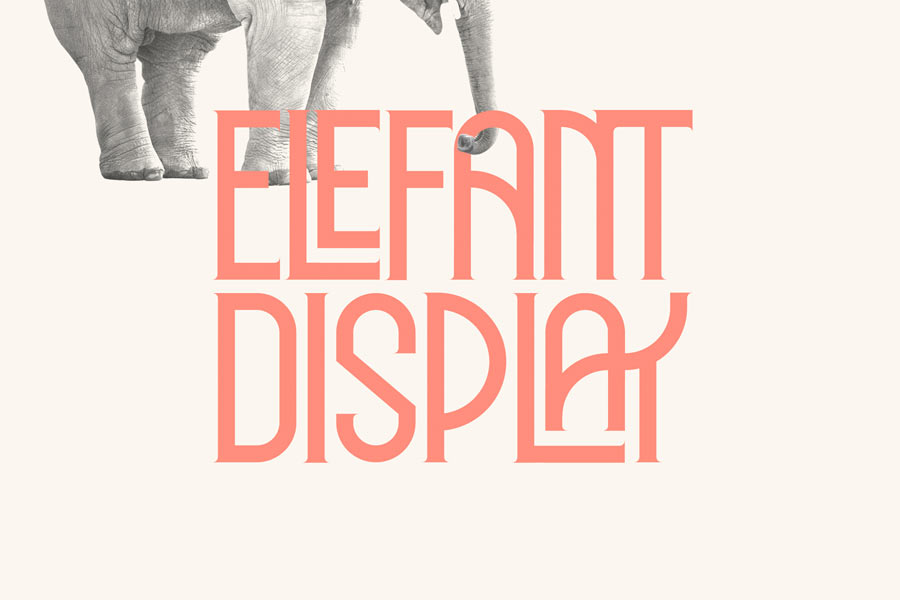
Elephant Display Font
Elephant Font – is when you have better weaponry than any other designer as you have this font in your hands. This is for believers in themselves designers with skills as professional and with all required hands on tools available. Elephant Display Font is suitable for your project and allows you to create beautiful designs, headlines, posters, logo, badges, t-shirt and more. Also best to use for headings, logos, posters, certificate, labels and signs.